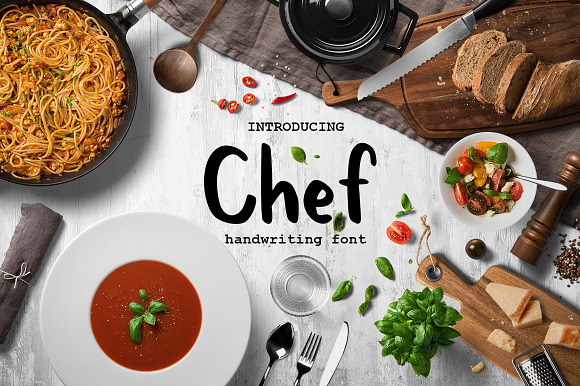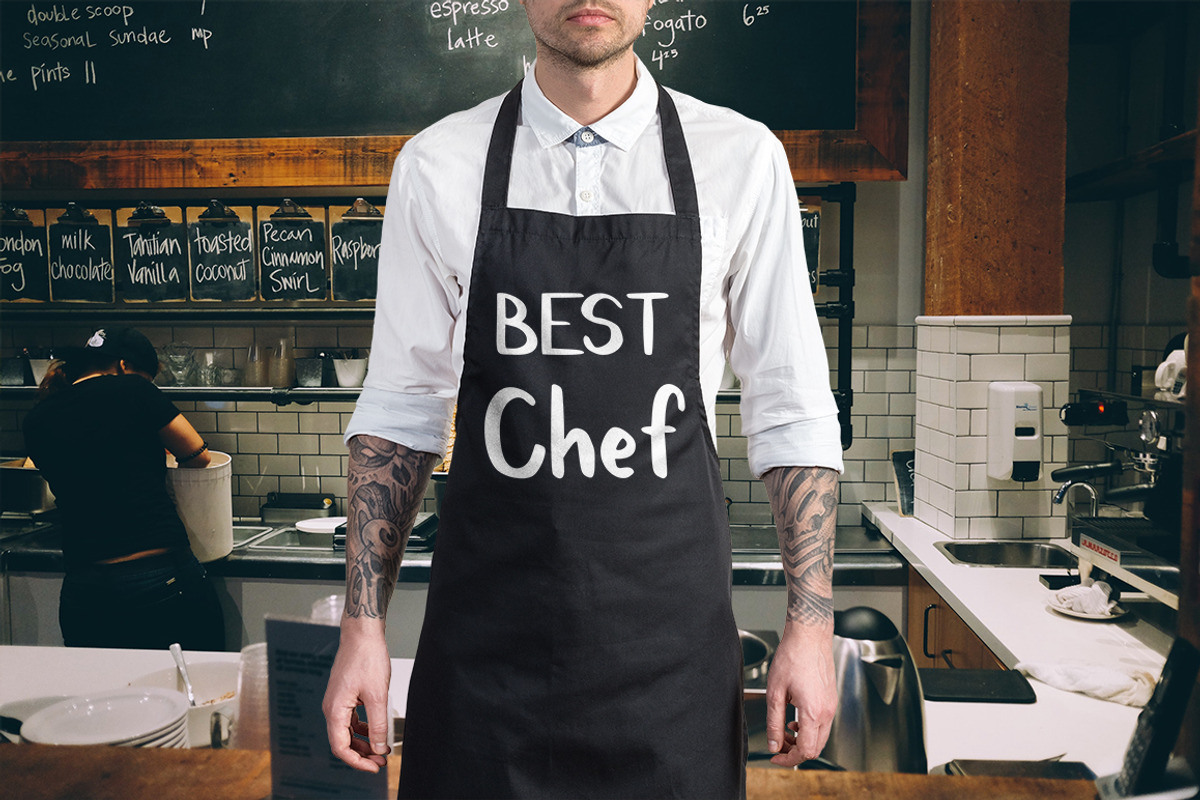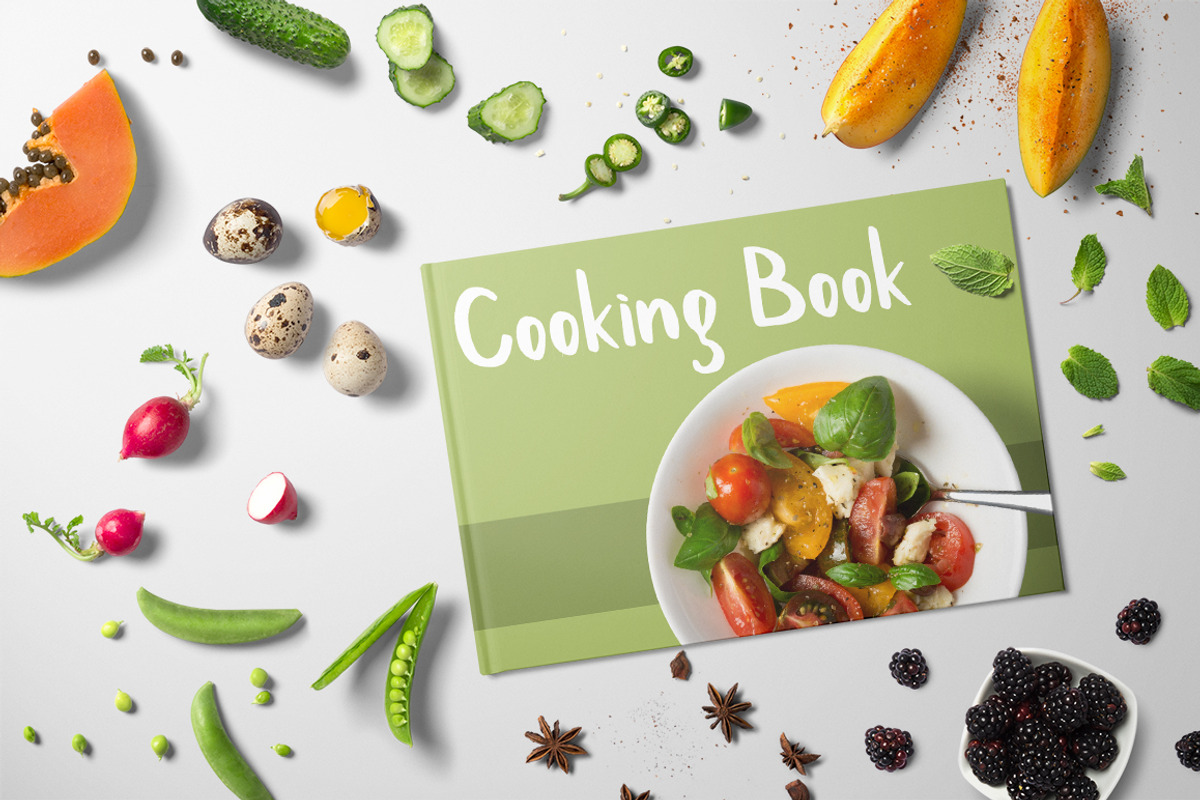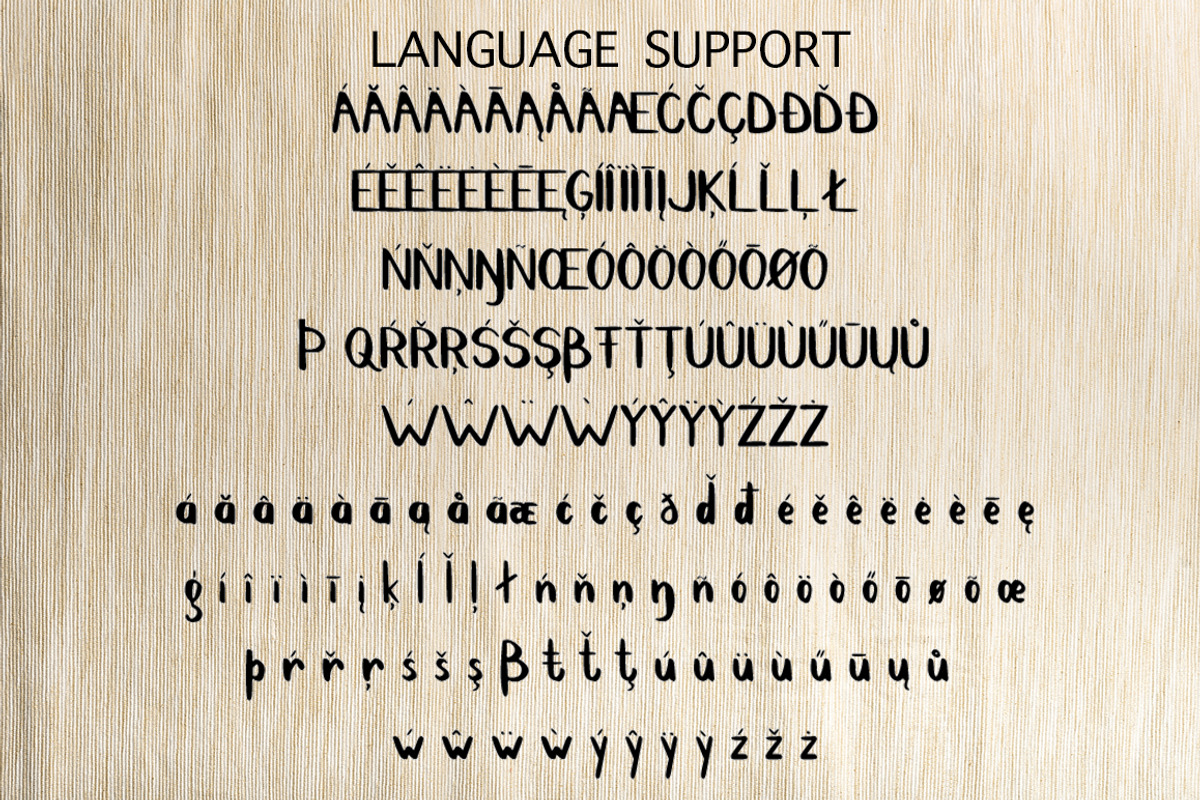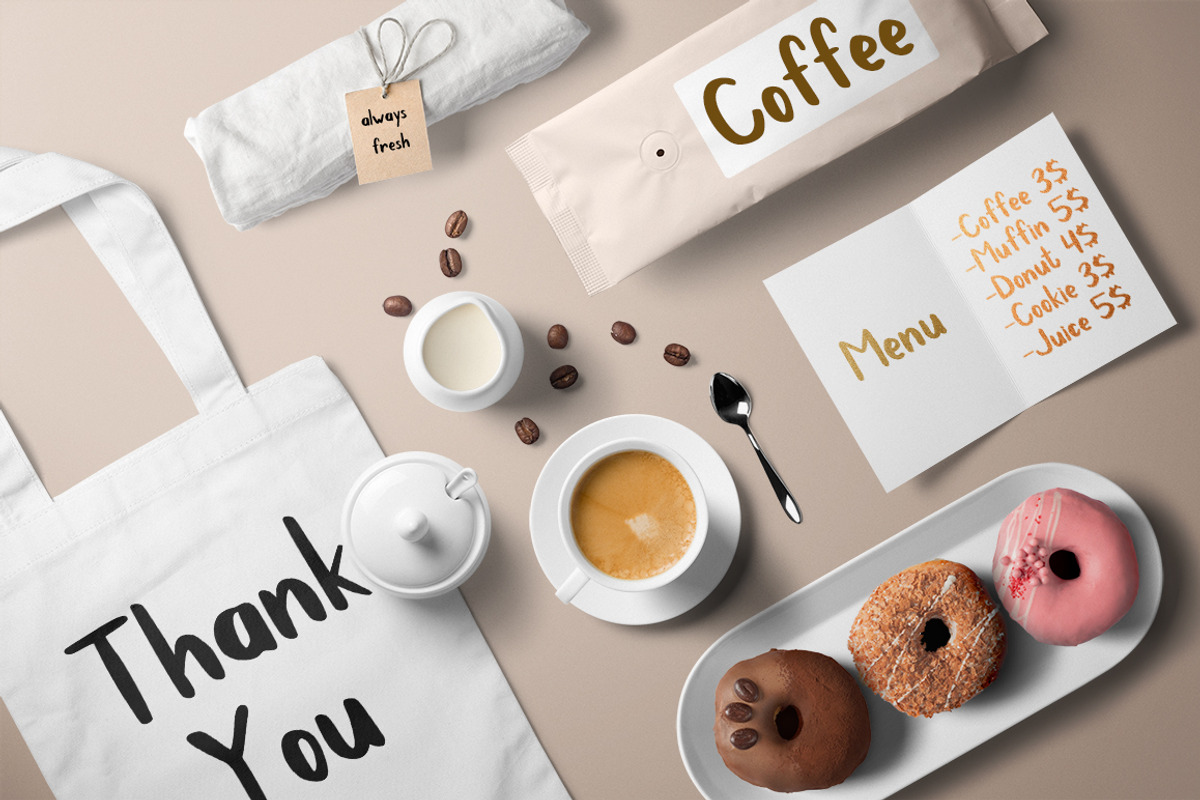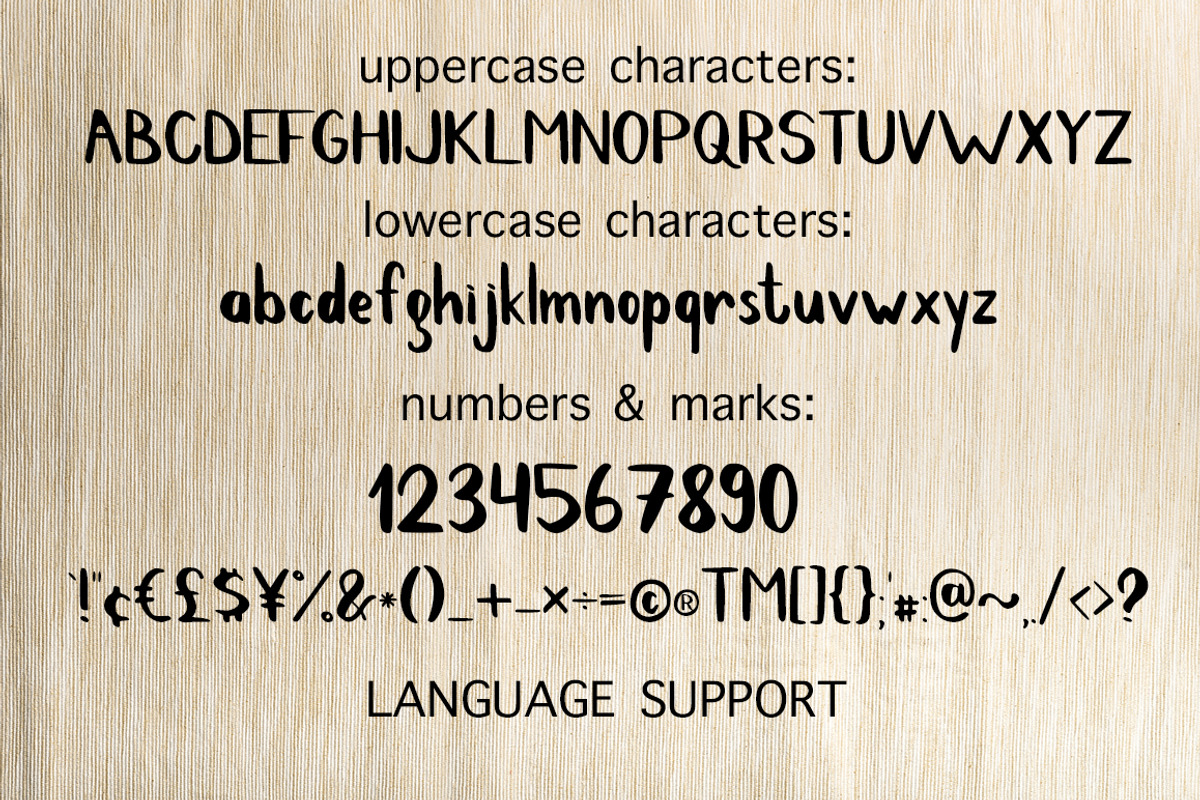
Chef handwritten brush font
Chef handwritten brush font This font was created specifically for food industry and would look great on menus, restaurant logos, recipe cards. That doesn't mean that you can't use it for other industries: check out how Chef looks on product packaging, mugs, photos on the preview.
Chef is a well-rounded handdrawn script font created with round brush and ink.
Chef has extensive language support - besides latin and most of European languages
Chef handwritten brush font by Gennadi Digital Studio fits naturally into Branding, posters, packaging, typography.